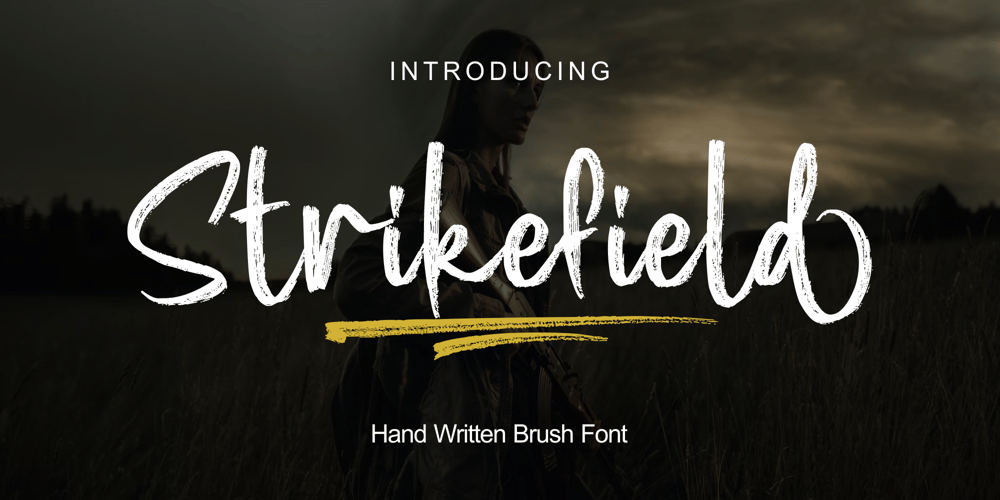
Strikefield Font Family was designed by Zamjump and published by Zamjump. Strikefield contains 1 styles and family package options. Strikefield is a textured brush font, a contemporary approach to design,natural handcrafted with an irregular base line. Suitable for use in title designs such as clothing,quotes, branding, logos, packaging designs, posters, album music and more. Strikefield includes a complete set of upper and lower case, alternate, swash, as well as multi-language, numeric, punctuation, binding support.Thank you so much for watching and enjoying it!File Included :- Uppercase- Lowercase- Ligature- Alternate- Swash- Multilanguage